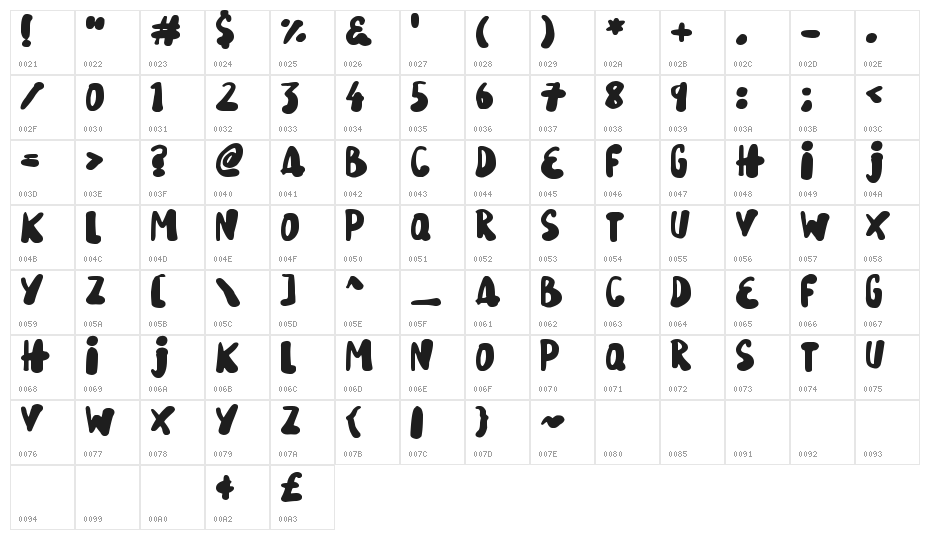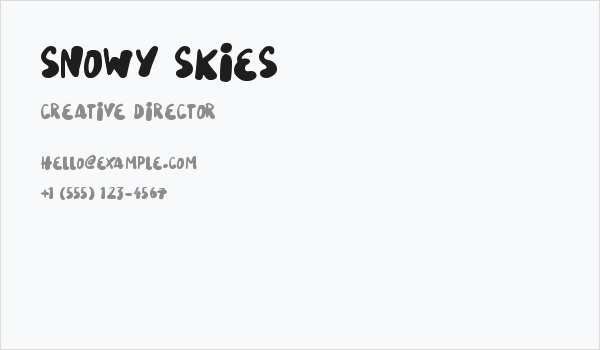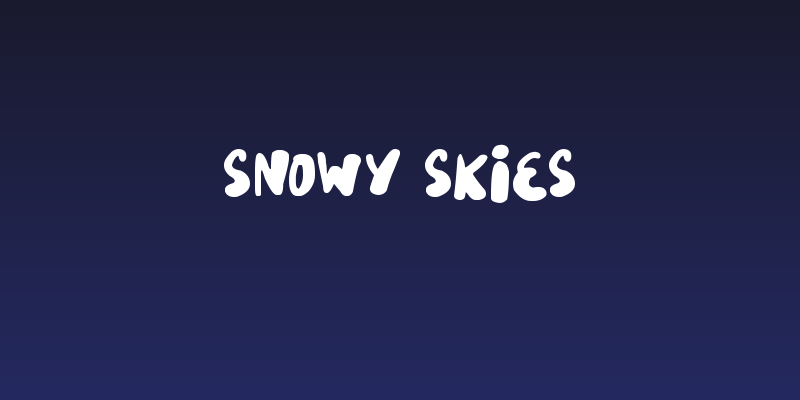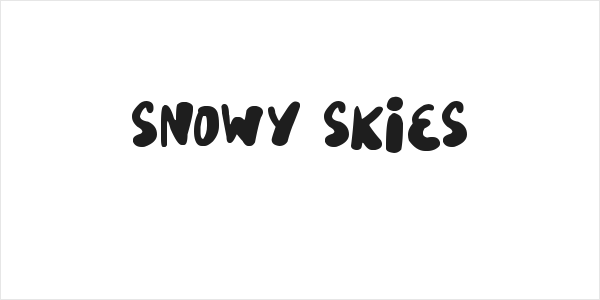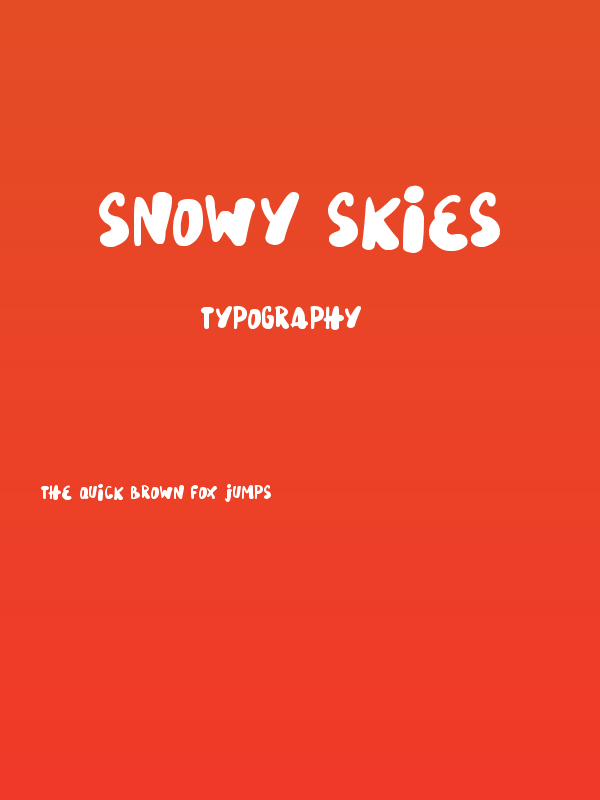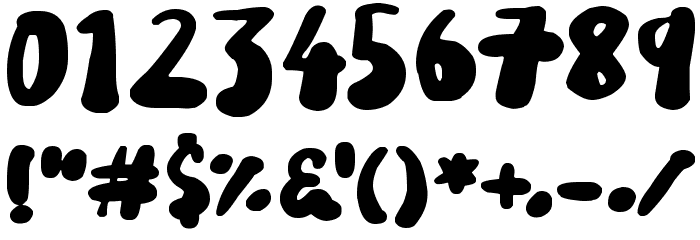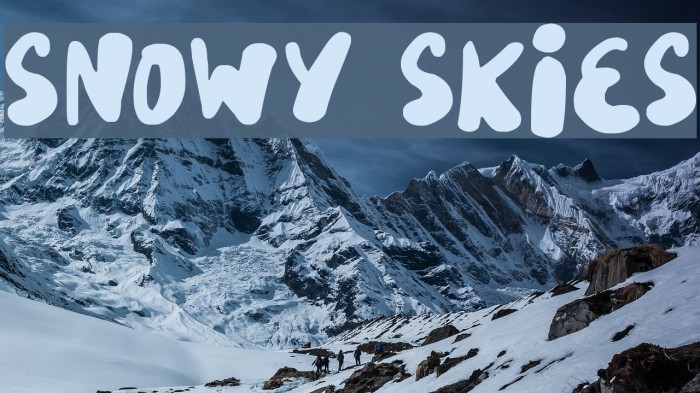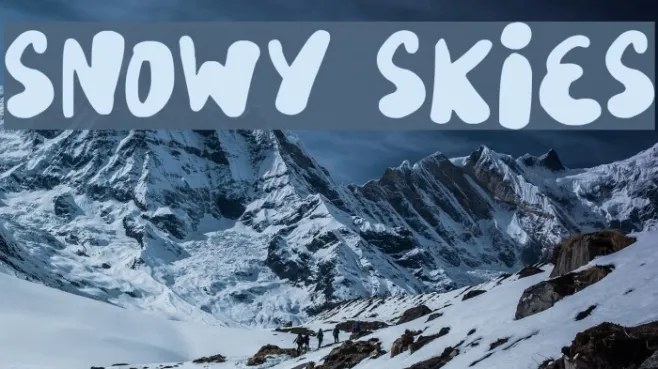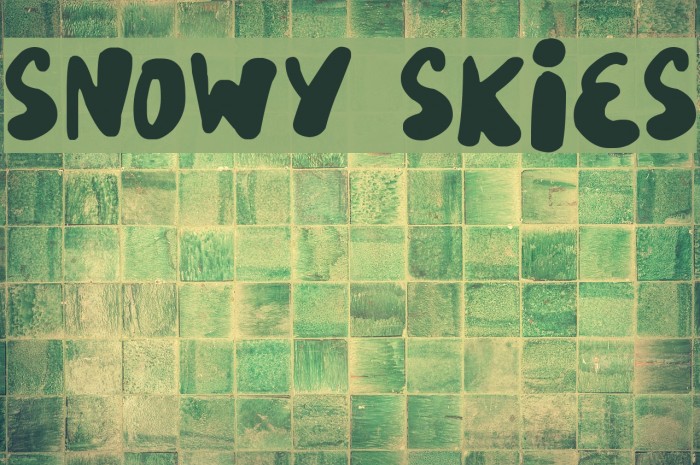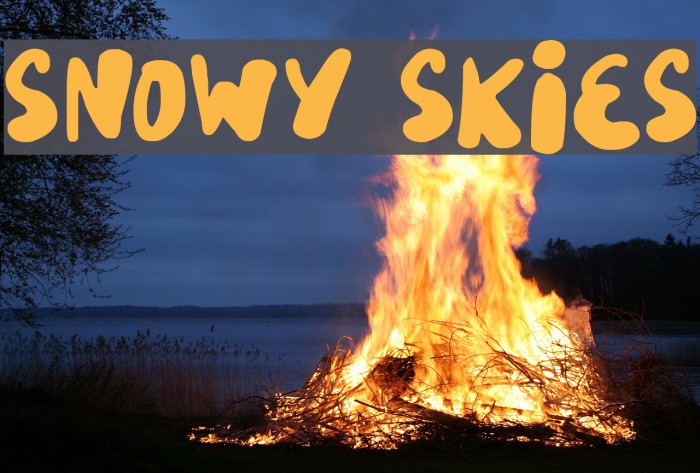
Snowy Skies Font
Snowy Skies Description
This playful and bold font features a bubbly and rounded style that exudes a sense of fun and creativity. The characters are thick and have a slightly irregular shape, giving them a hand-drawn appearance. The uppercase and lowercase letters maintain a consistent style, with the lowercase letters being slightly smaller and more compact. The numbers and special characters follow the same whimsical design, making the font suitable for projects that require a lively and informal touch. The overall look is both approachable and distinctive, making it ideal for eye-catching designs.
| Proposed Projects | Ideal for children's books, playful branding, party invitations, and creative posters. |